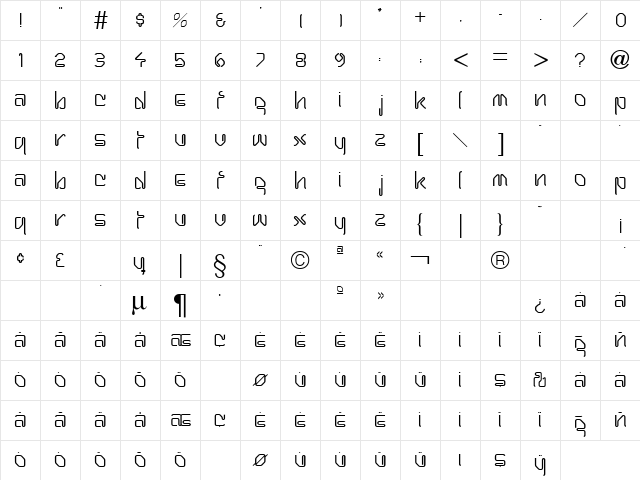
TR Harpoon Regular
Design Context for TR Harpoon Typeface
TR Harpoon is a composed and adaptable typeface that performs quietly and consistently across a wide range of design contexts.